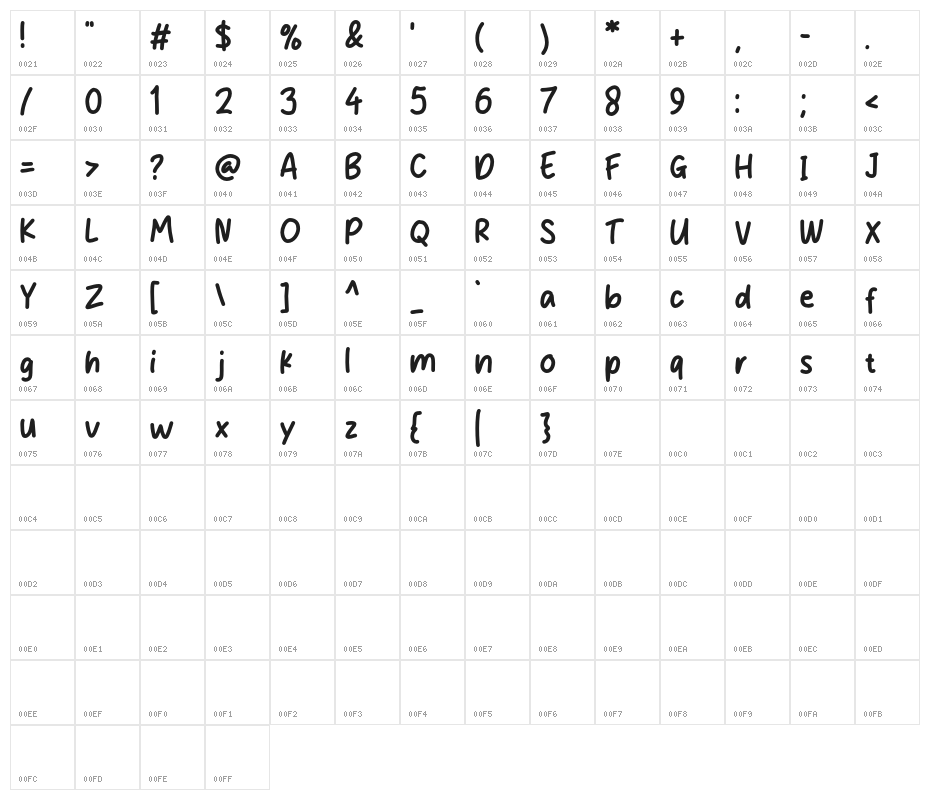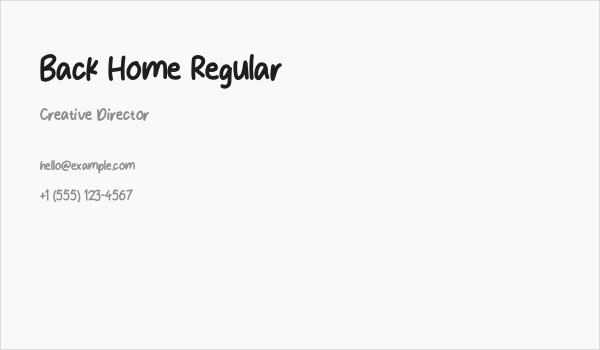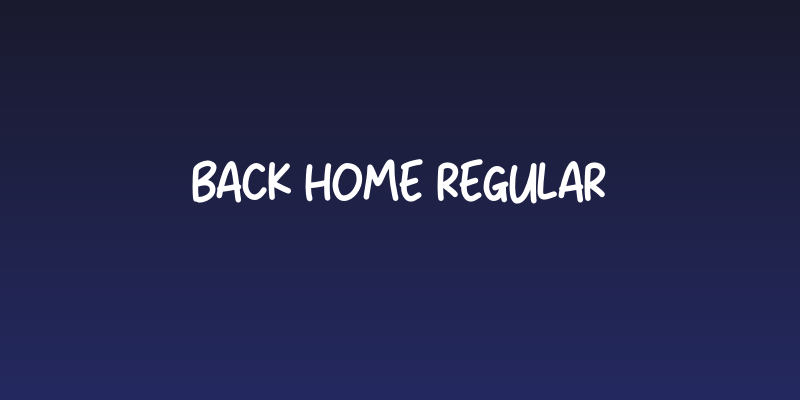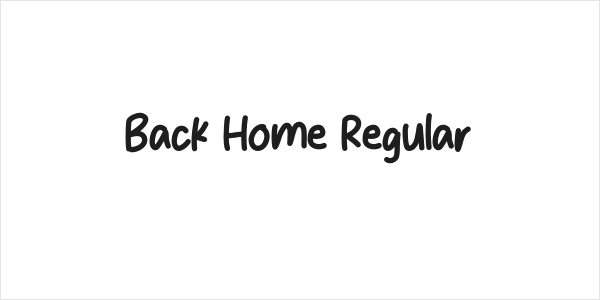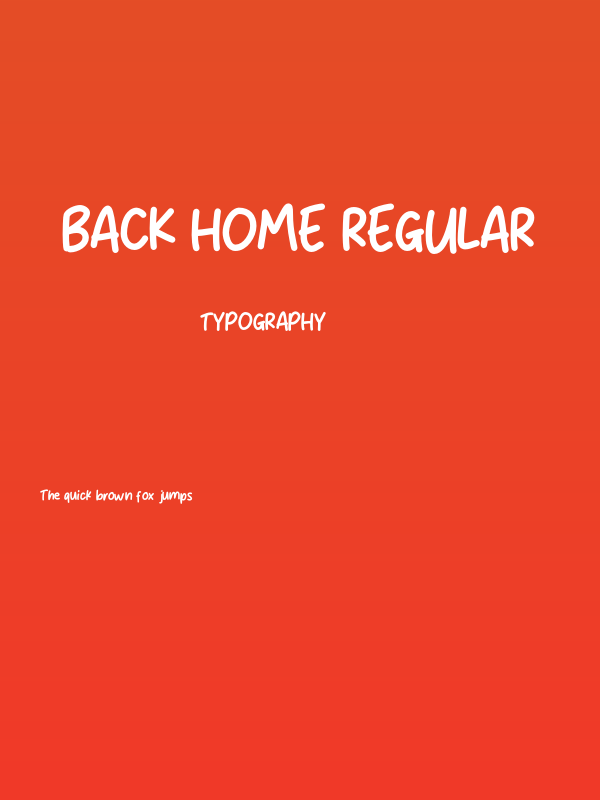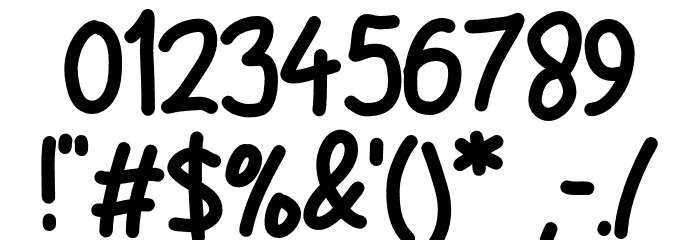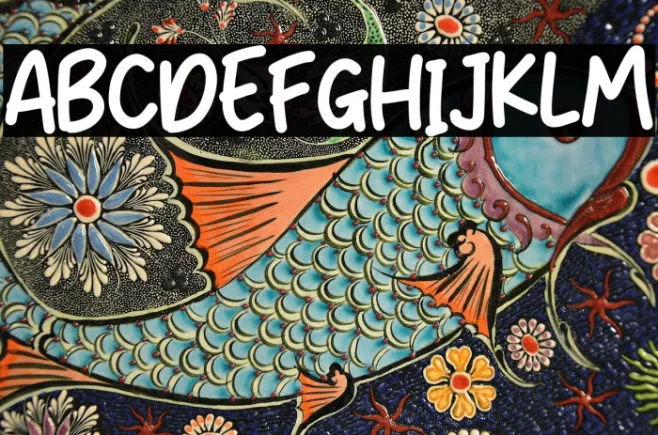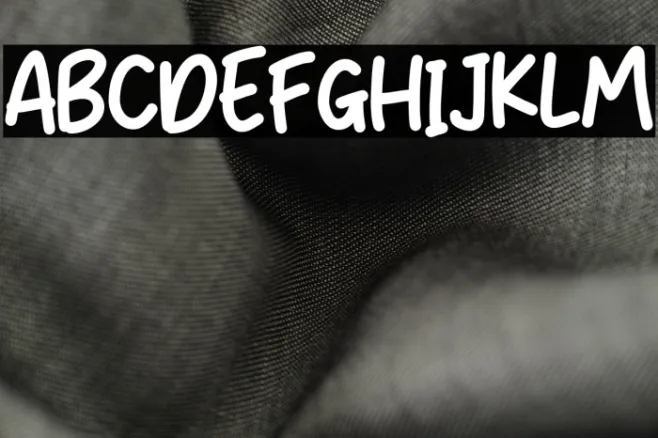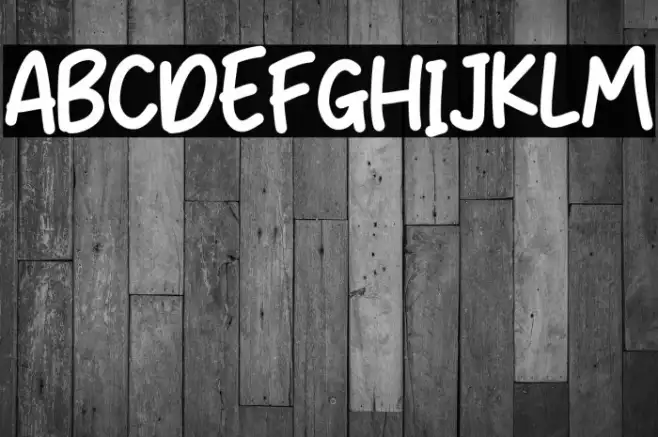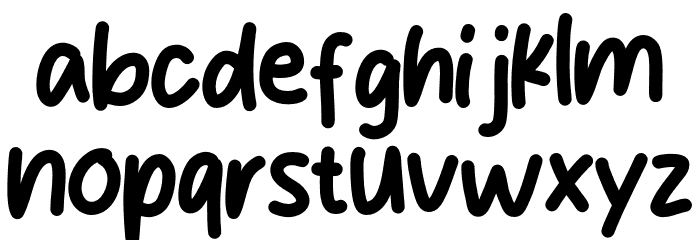
Back Home Regular Font
Back Home Regular Description
This font features a playful and casual handwritten style, characterized by its smooth, rounded edges and slightly irregular letterforms that convey a sense of warmth and approachability. The uppercase and lowercase letters maintain a consistent flow, with a moderate stroke width that ensures readability while adding a touch of personality. The numerals and special characters are crafted with the same informal flair, making them suitable for a variety of creative applications. The overall appearance is friendly and inviting, making it ideal for projects that require a personal touch.